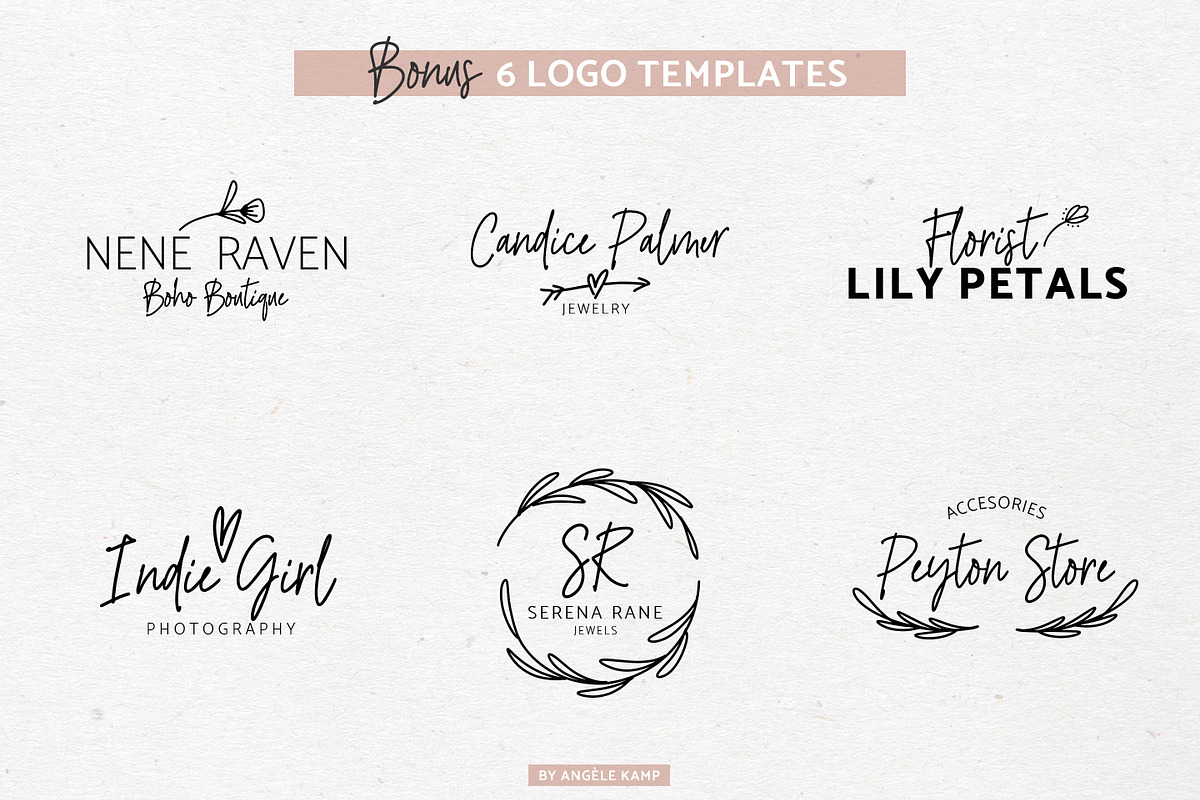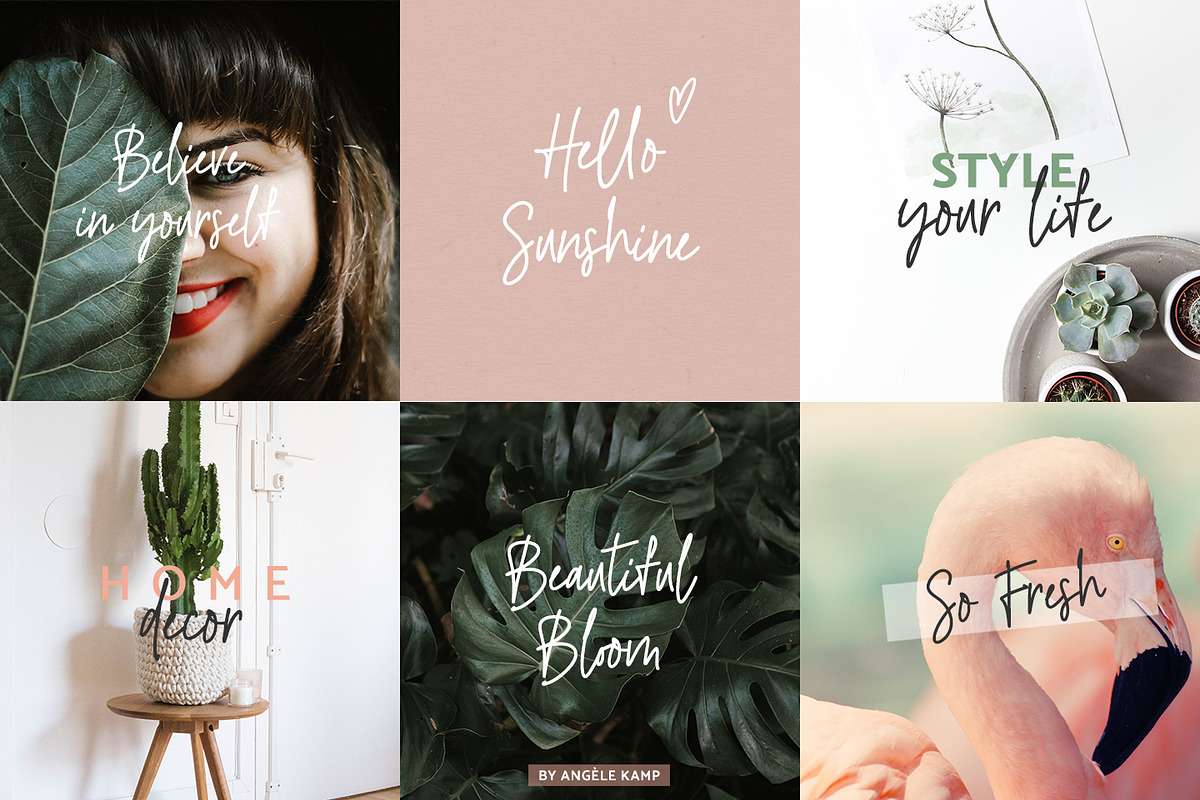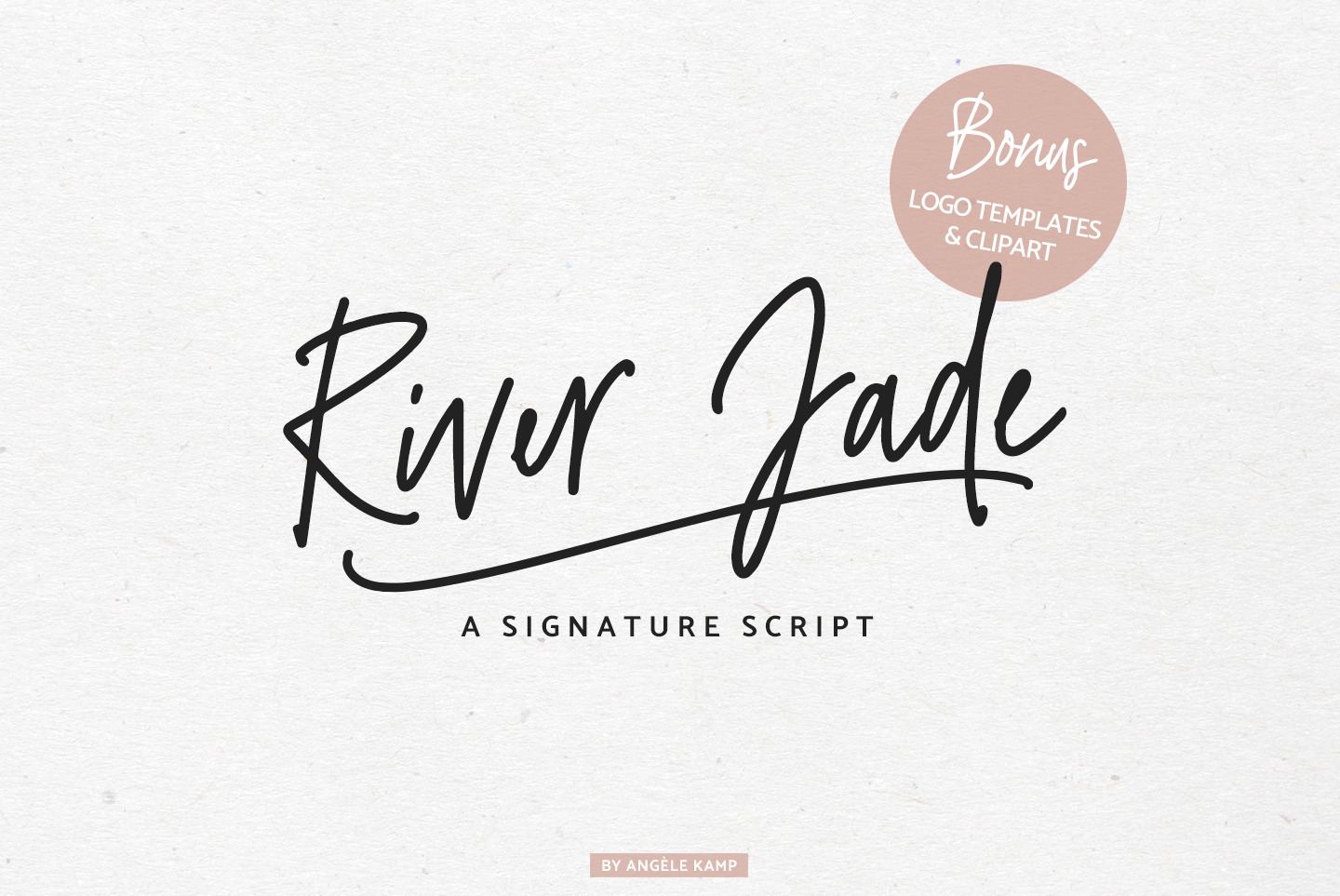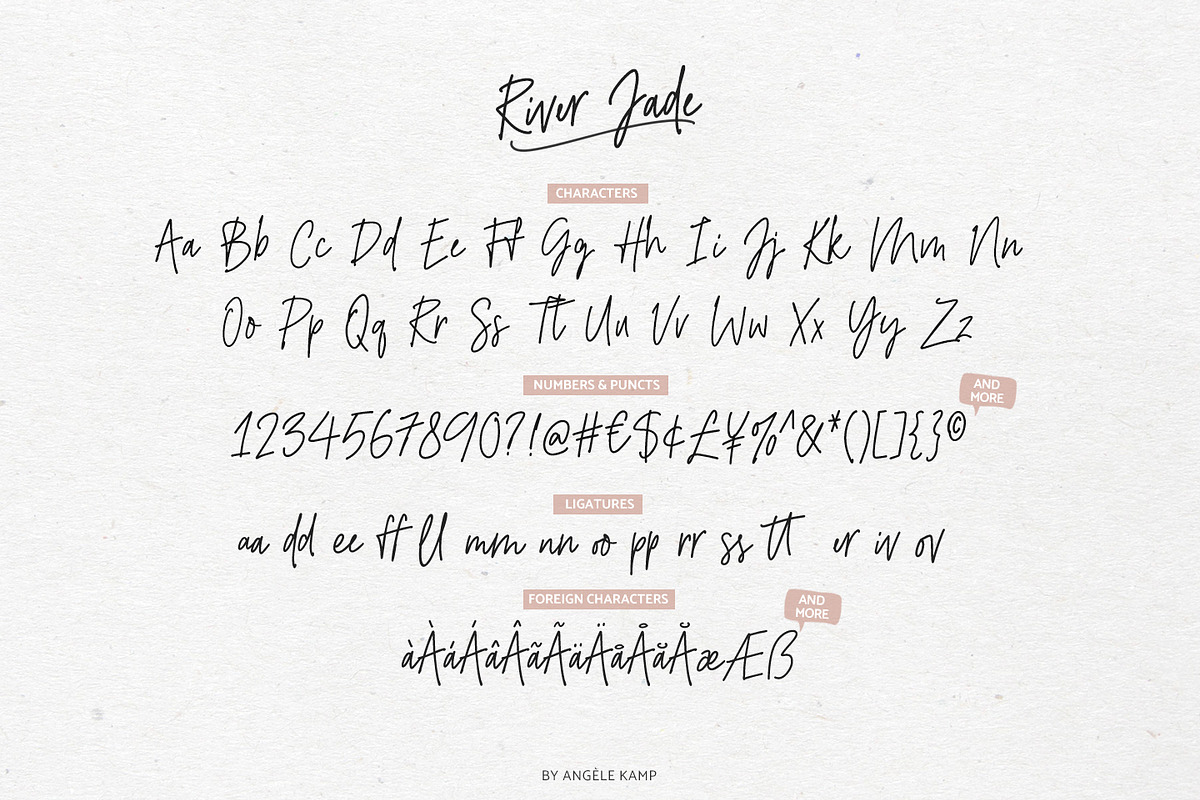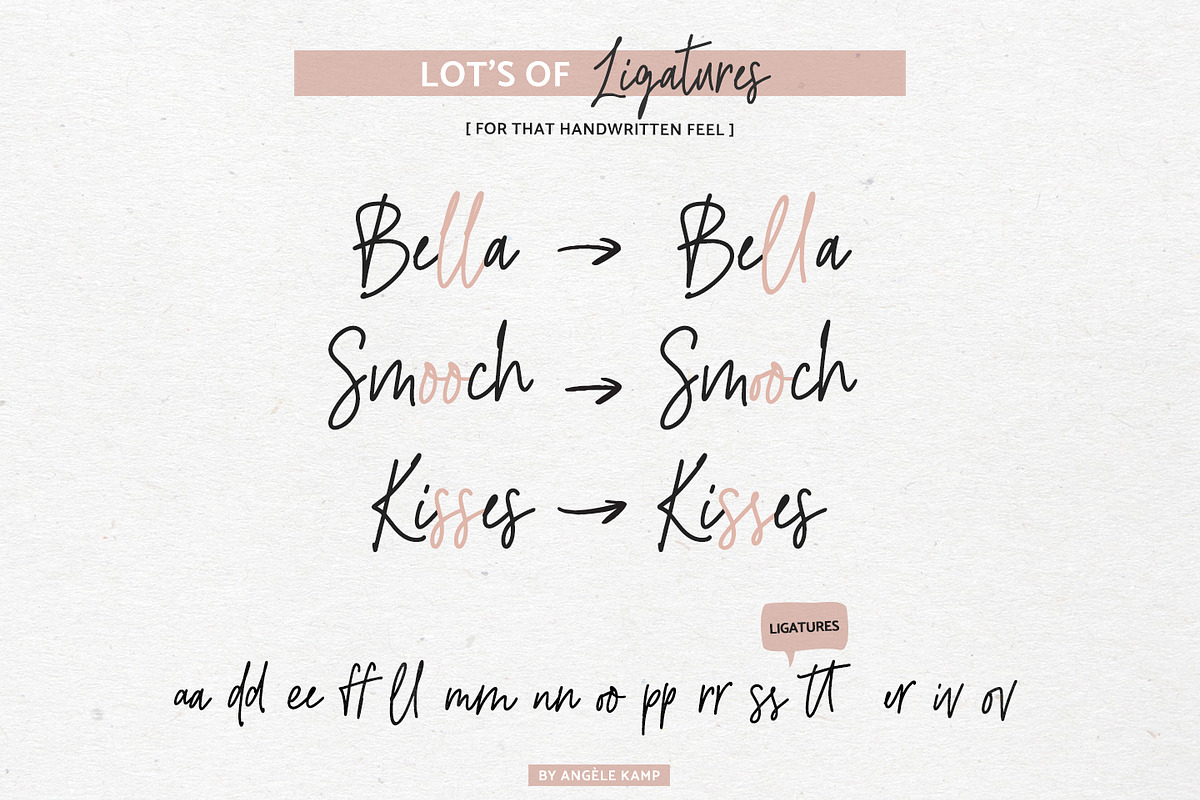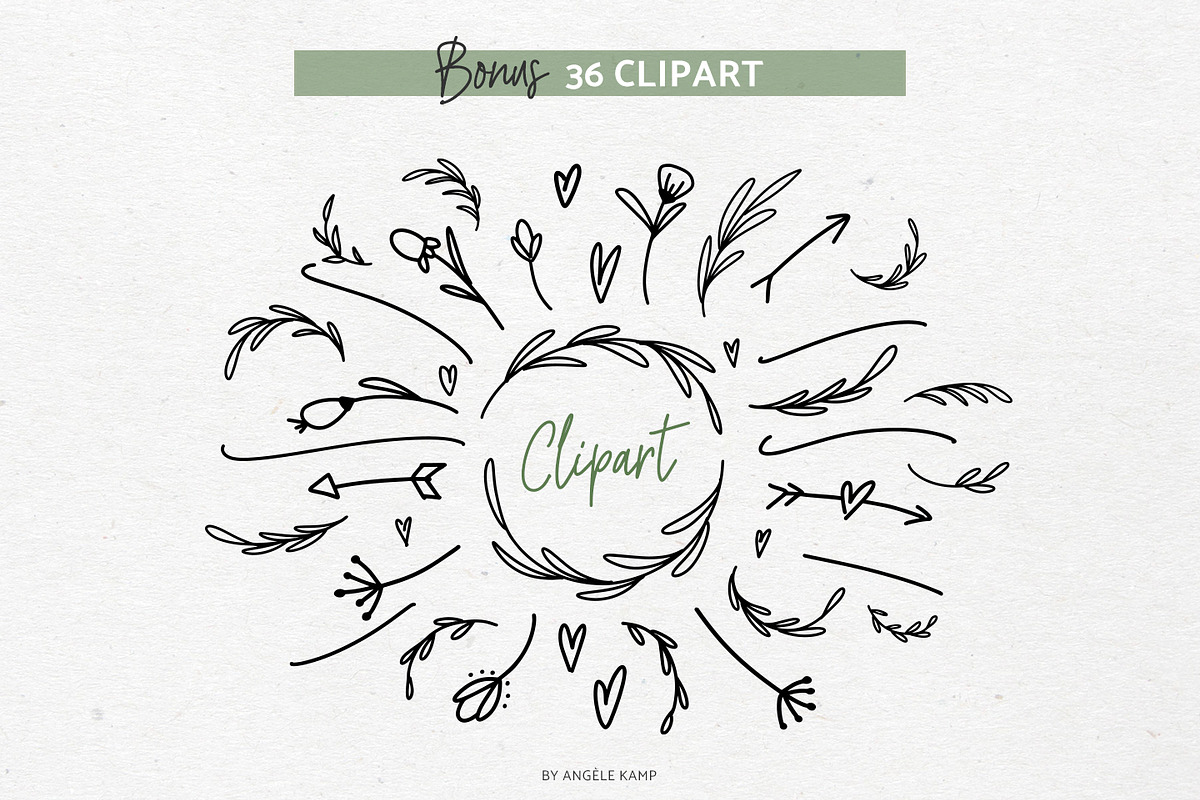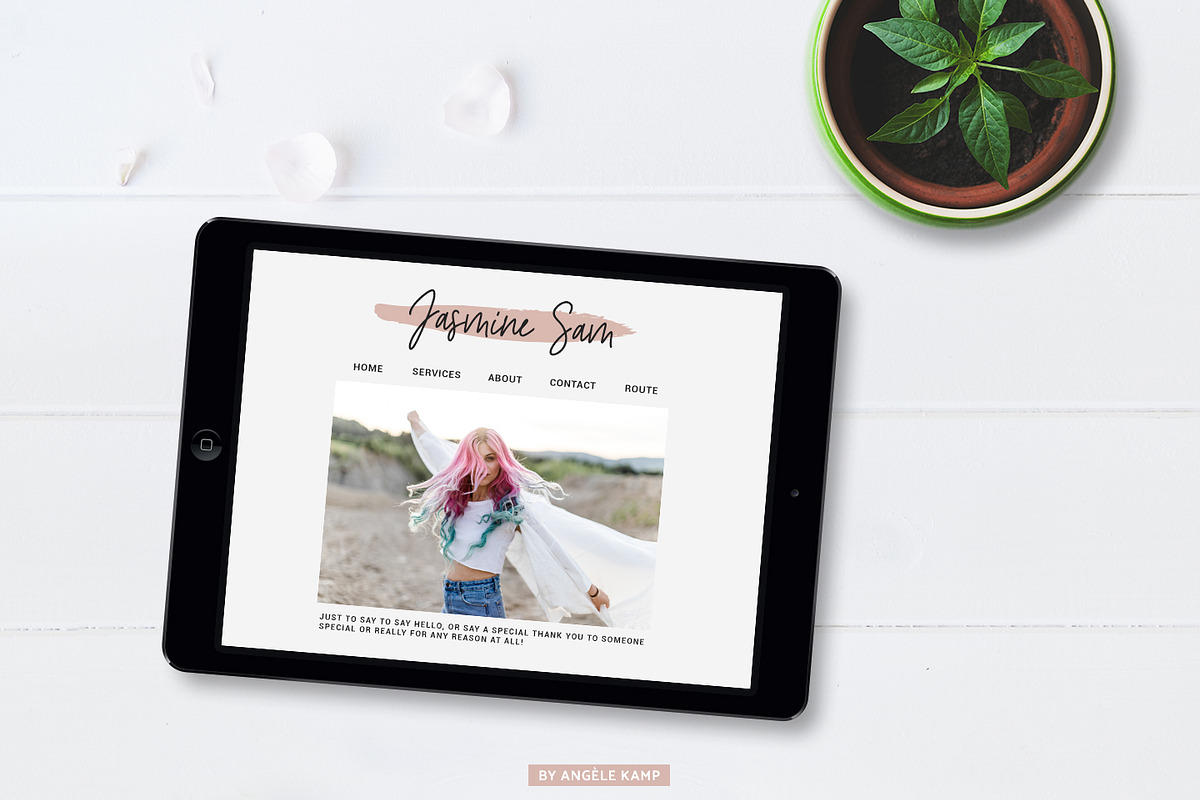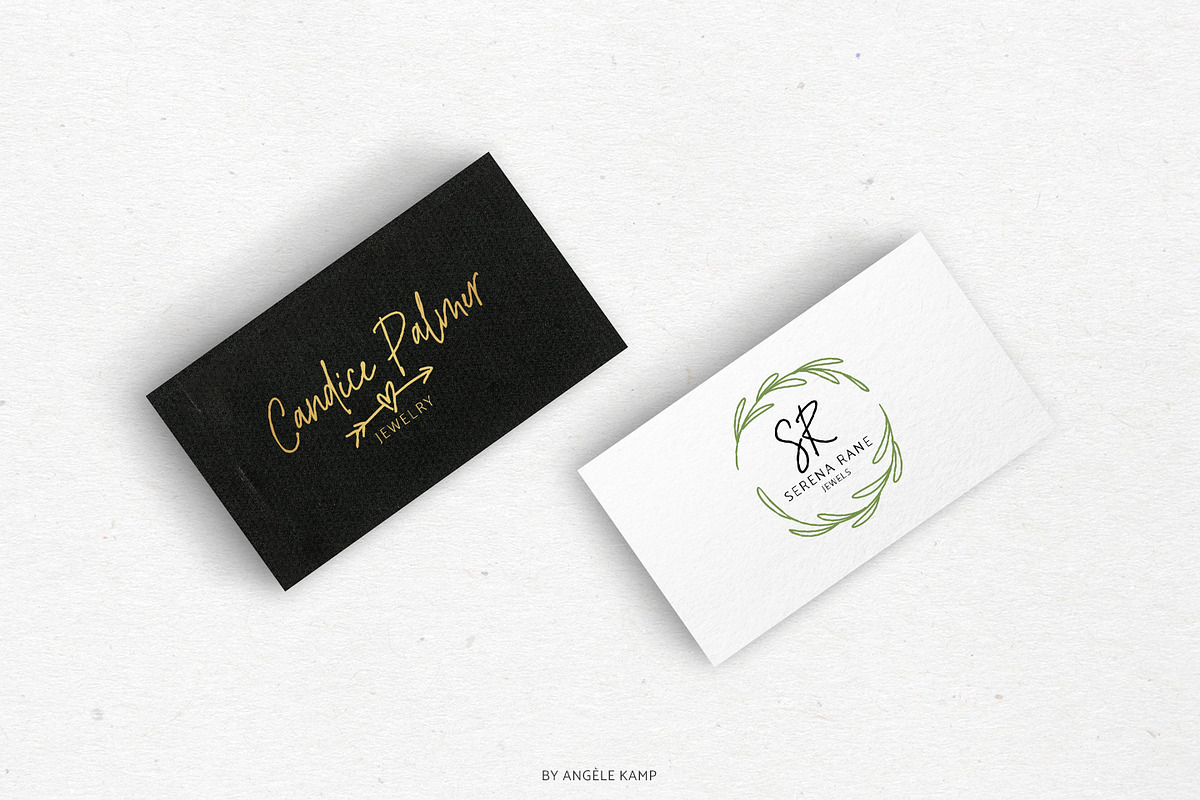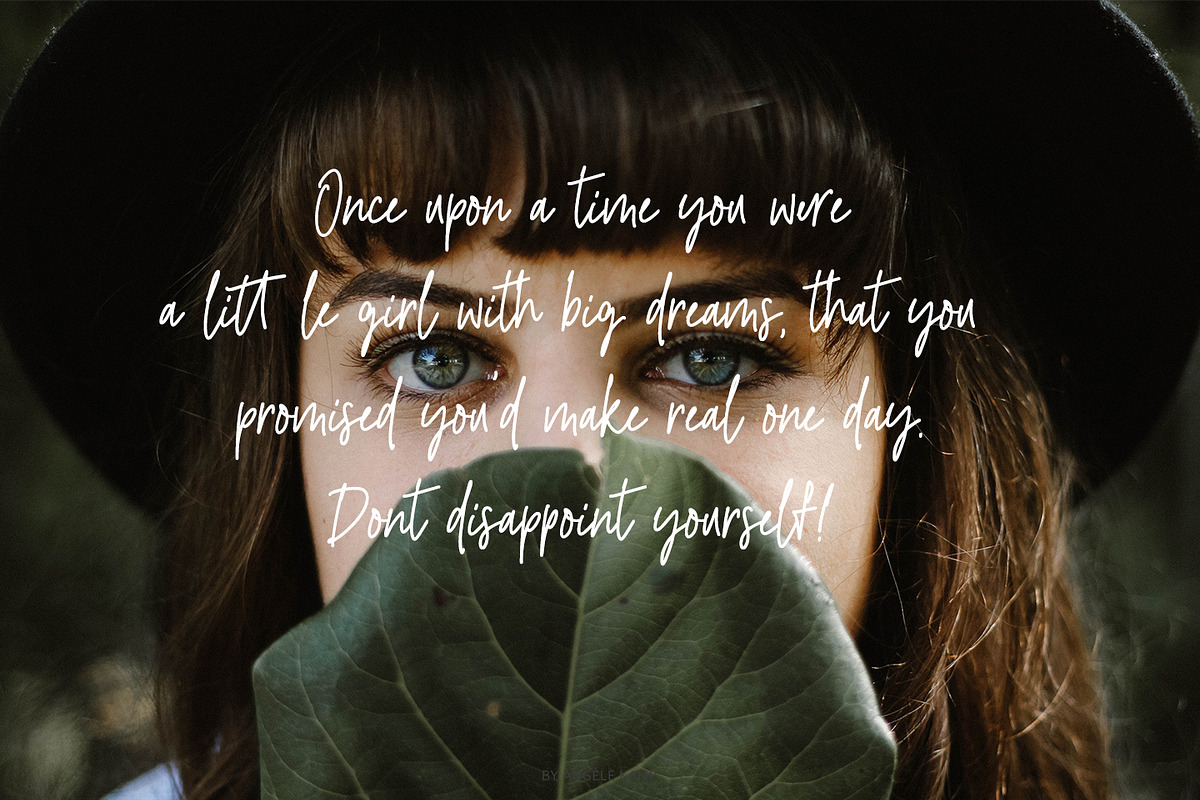
River Jade signature font & logos
River Jade comes with the whole package! It's got a fresh signature font with lots of ligatures for that handwritten feel. It's got 6 logo templates so you can create logos for your clients in minutes. And to top it off it comes with bonus clipart which will make designing so much easier and fun. Happy creating everyone!